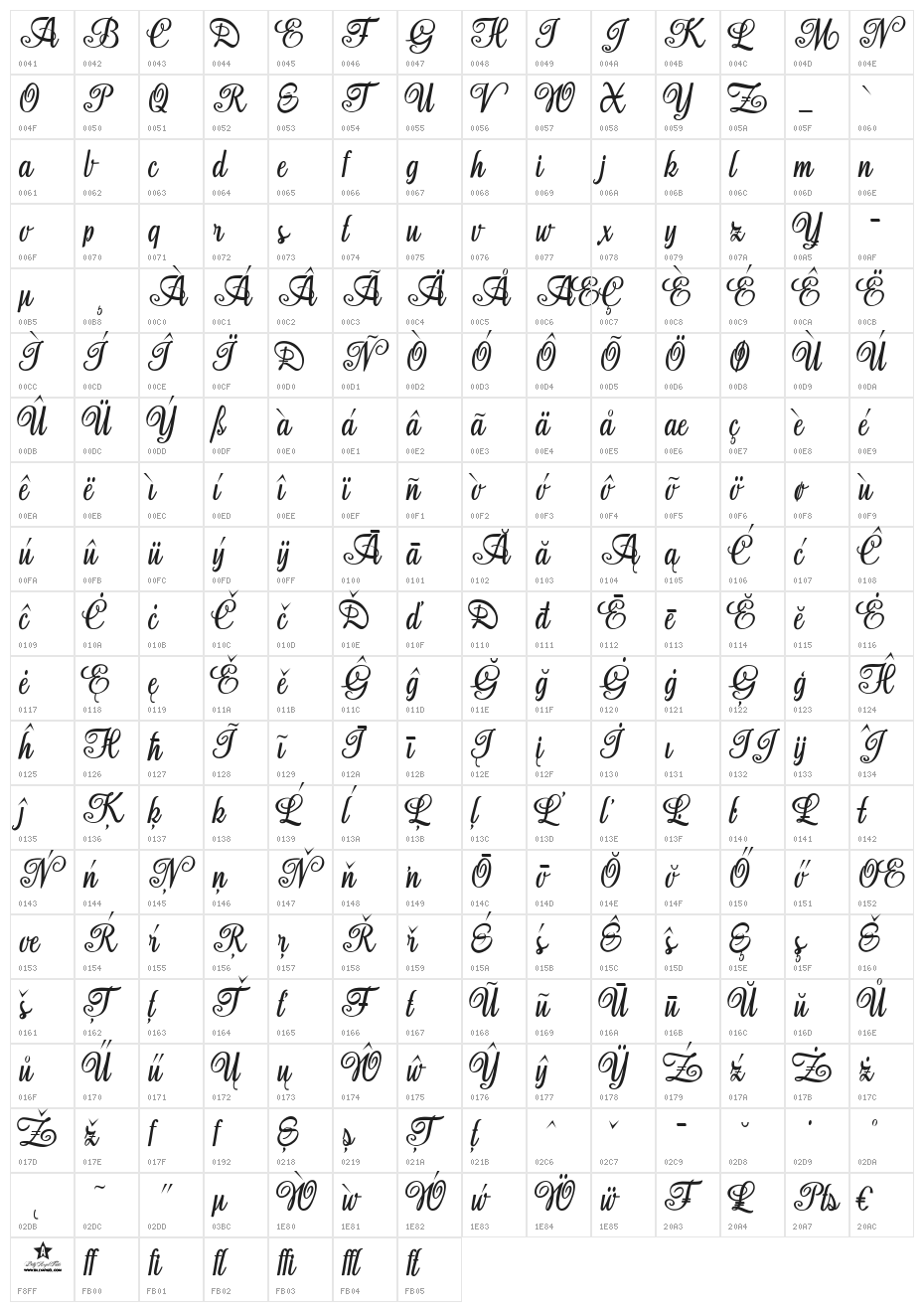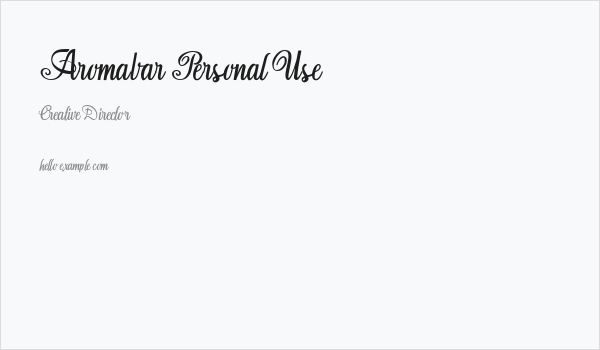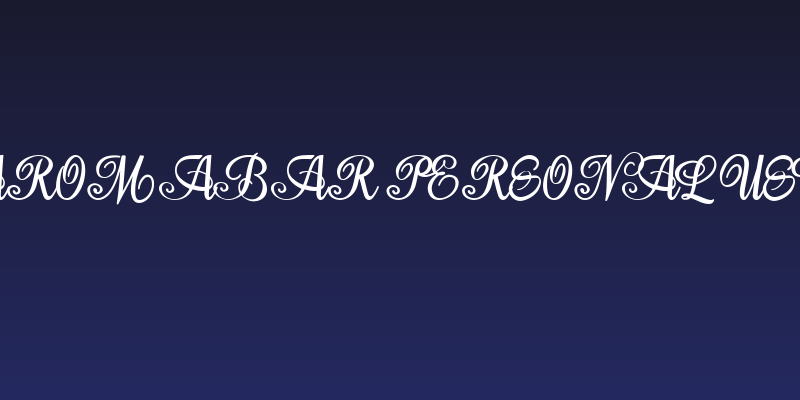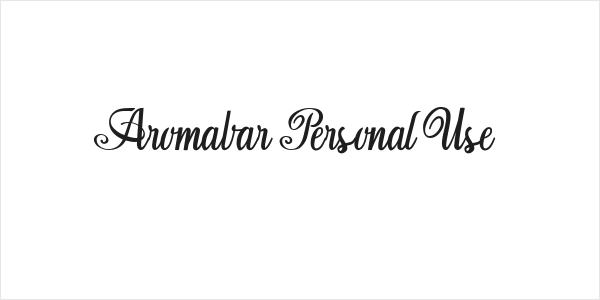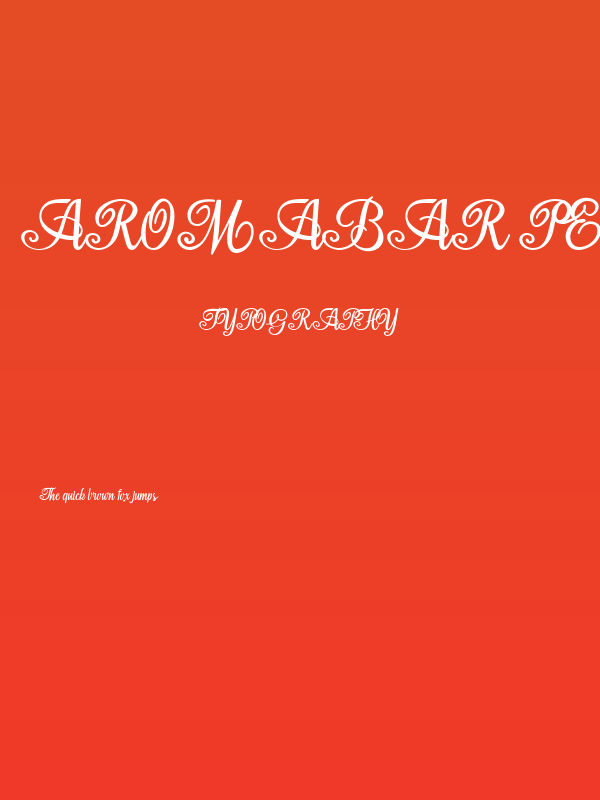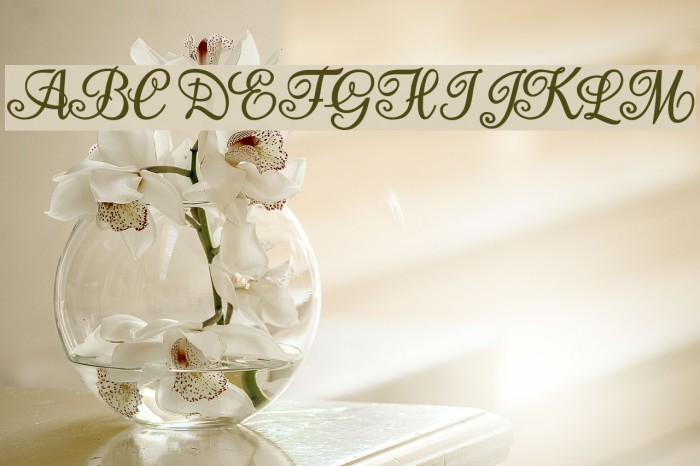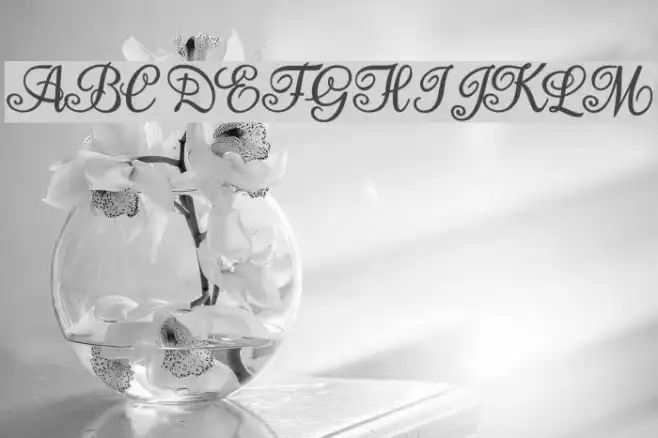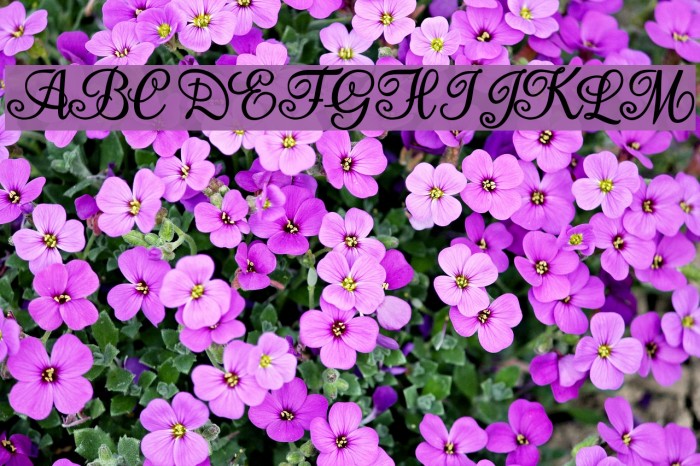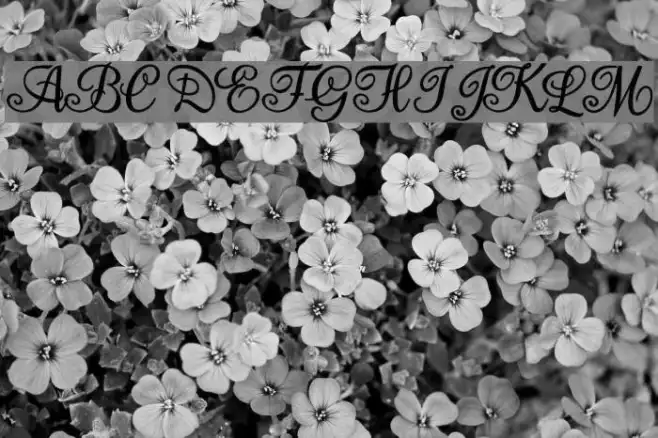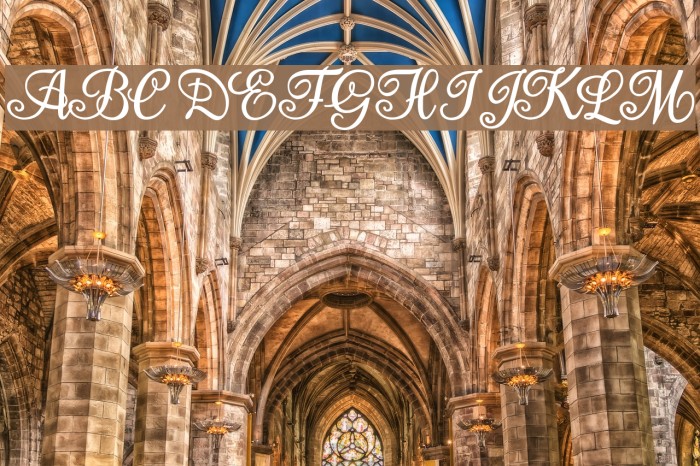
Aromabar Personal Use Font
Aromabar Personal Use Description
This font features an elegant and flowing script style, characterized by its ornate and decorative uppercase letters. The lowercase letters maintain a smooth and connected appearance, offering a harmonious blend of traditional calligraphy with a modern twist. The font's design is highly decorative, making it suitable for projects that require a touch of sophistication and flair. The characters exhibit a consistent stroke width, providing a balanced and cohesive look. The font's unique style is ideal for creating eye-catching designs that demand attention.
| Proposed Projects | Ideal for wedding invitations, greeting cards, logos, and branding materials that require a sophisticated and decorative touch. |